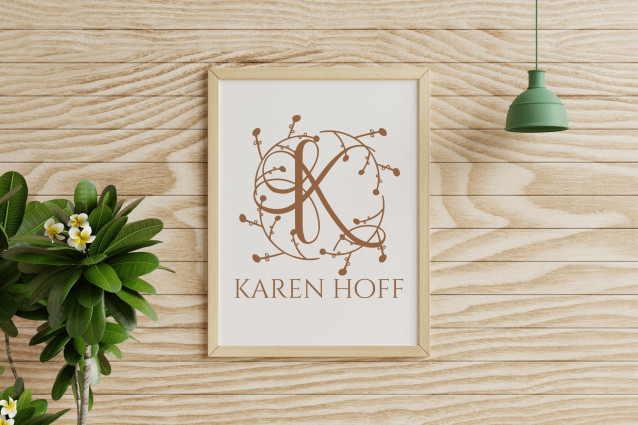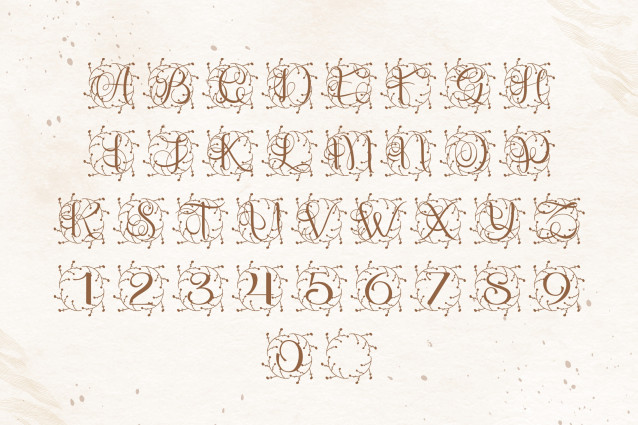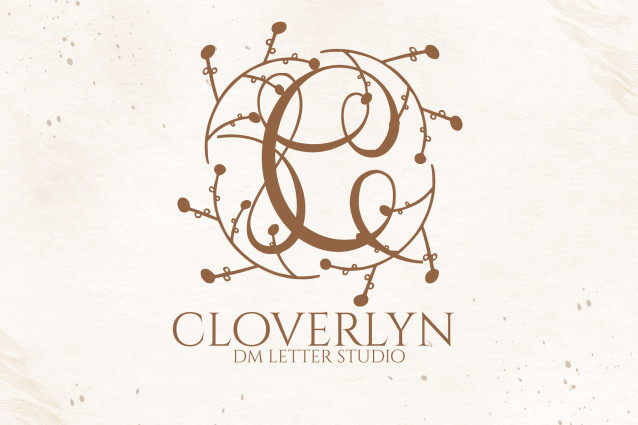
DM Cloverlyn Font
DM Cloverlyn Font is a graceful serif monogram font inspired by the charm of nature and refined simplicity. Each uppercase letter is paired with subtle clover and botanical elements, making it perfect for wedding branding, personalized gifts, Cricut crafts, and minimalist floral design projects.